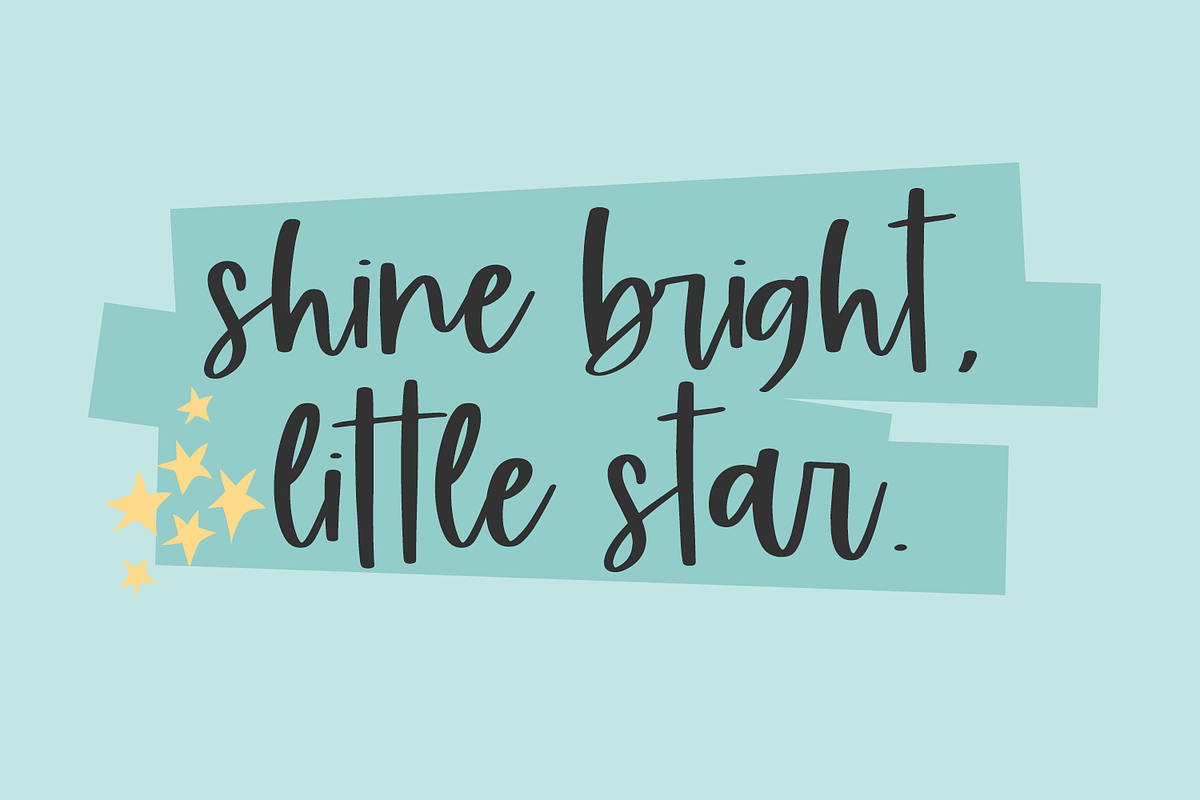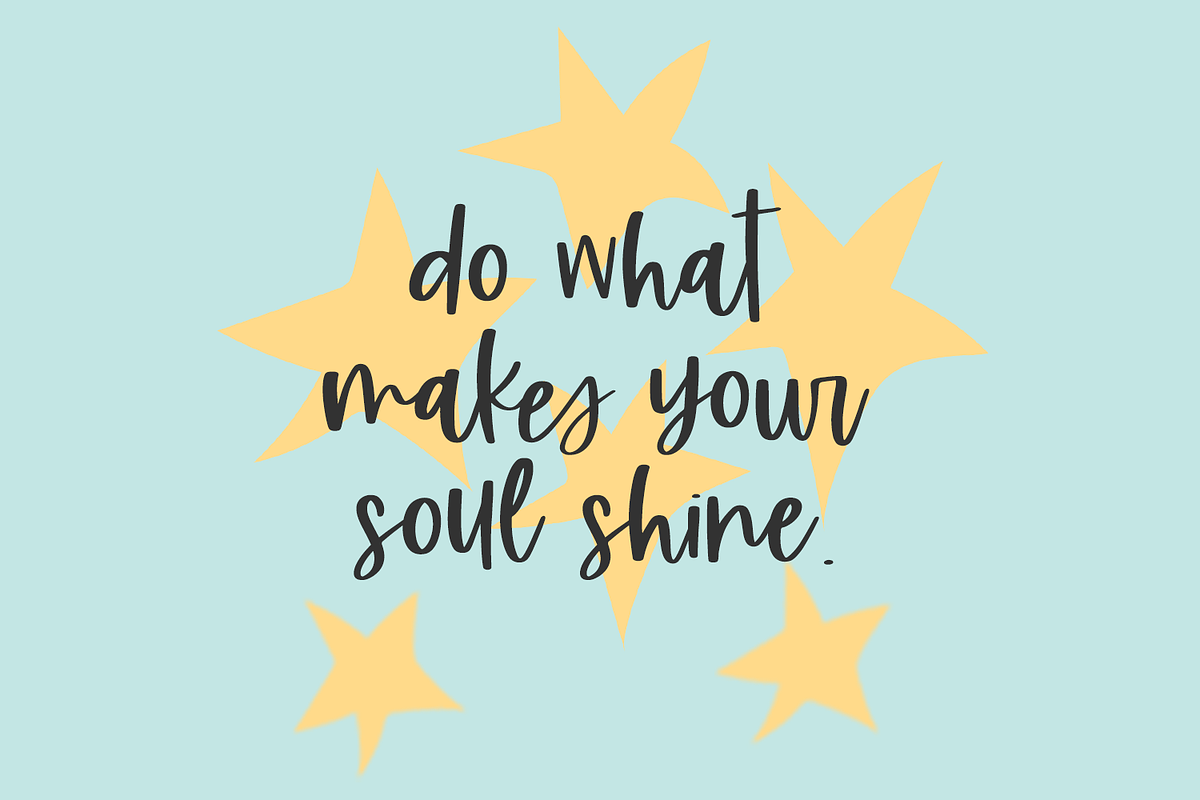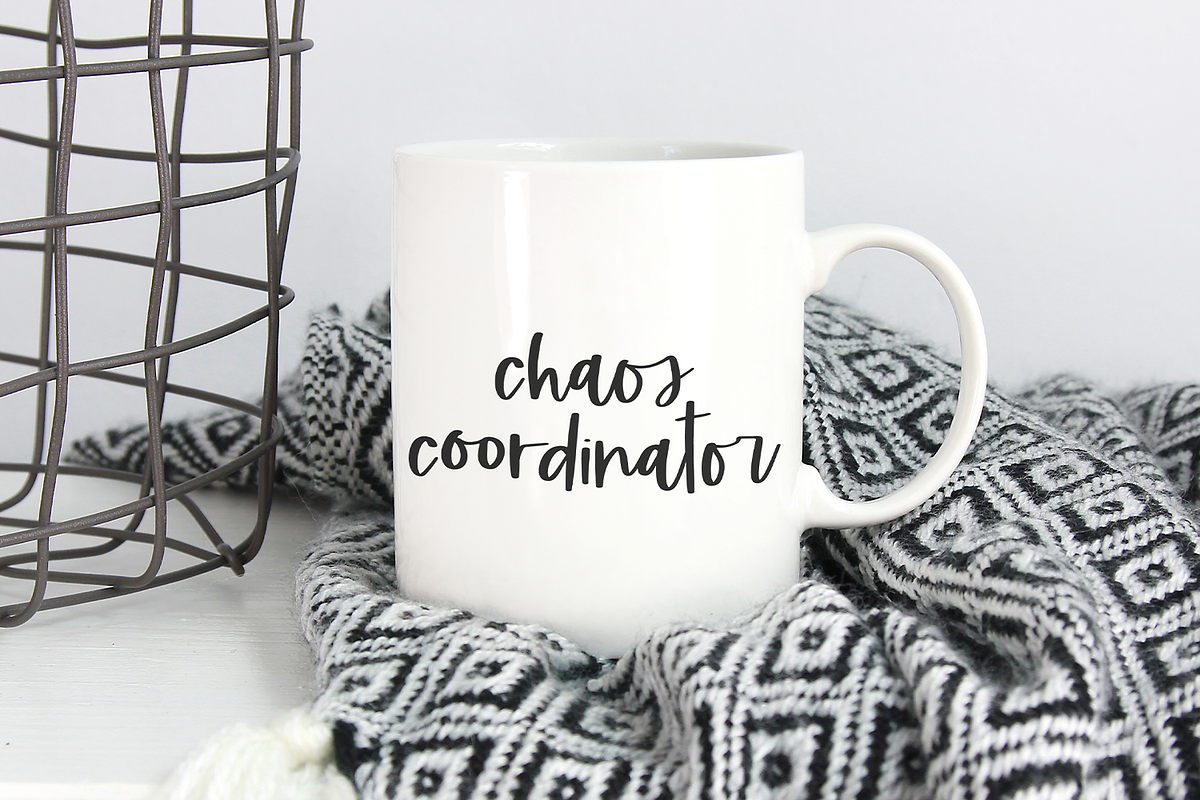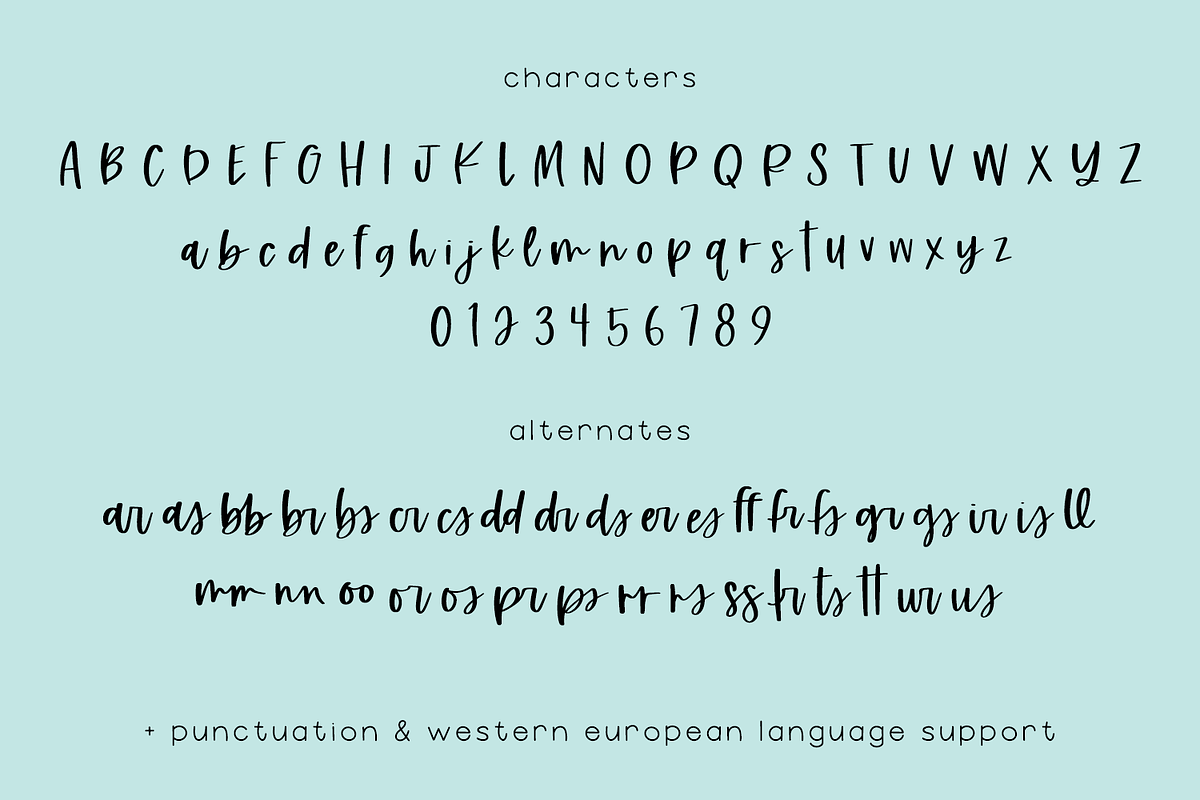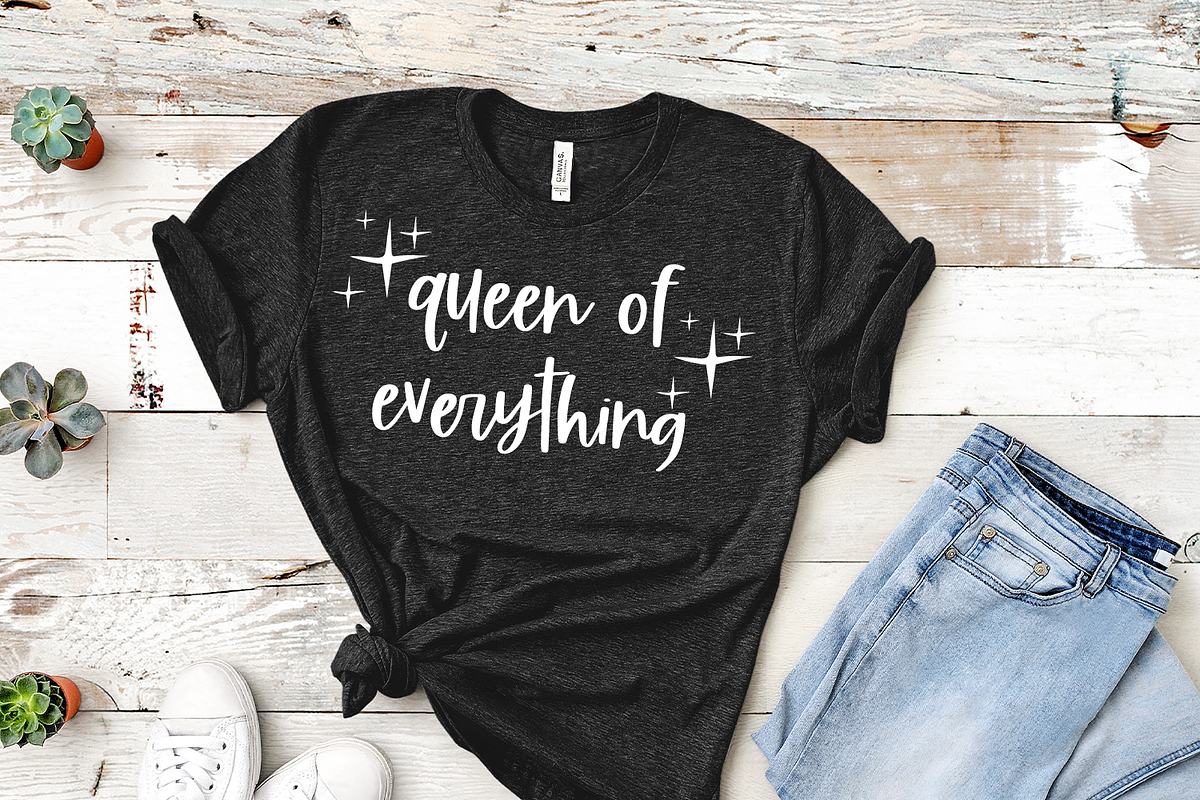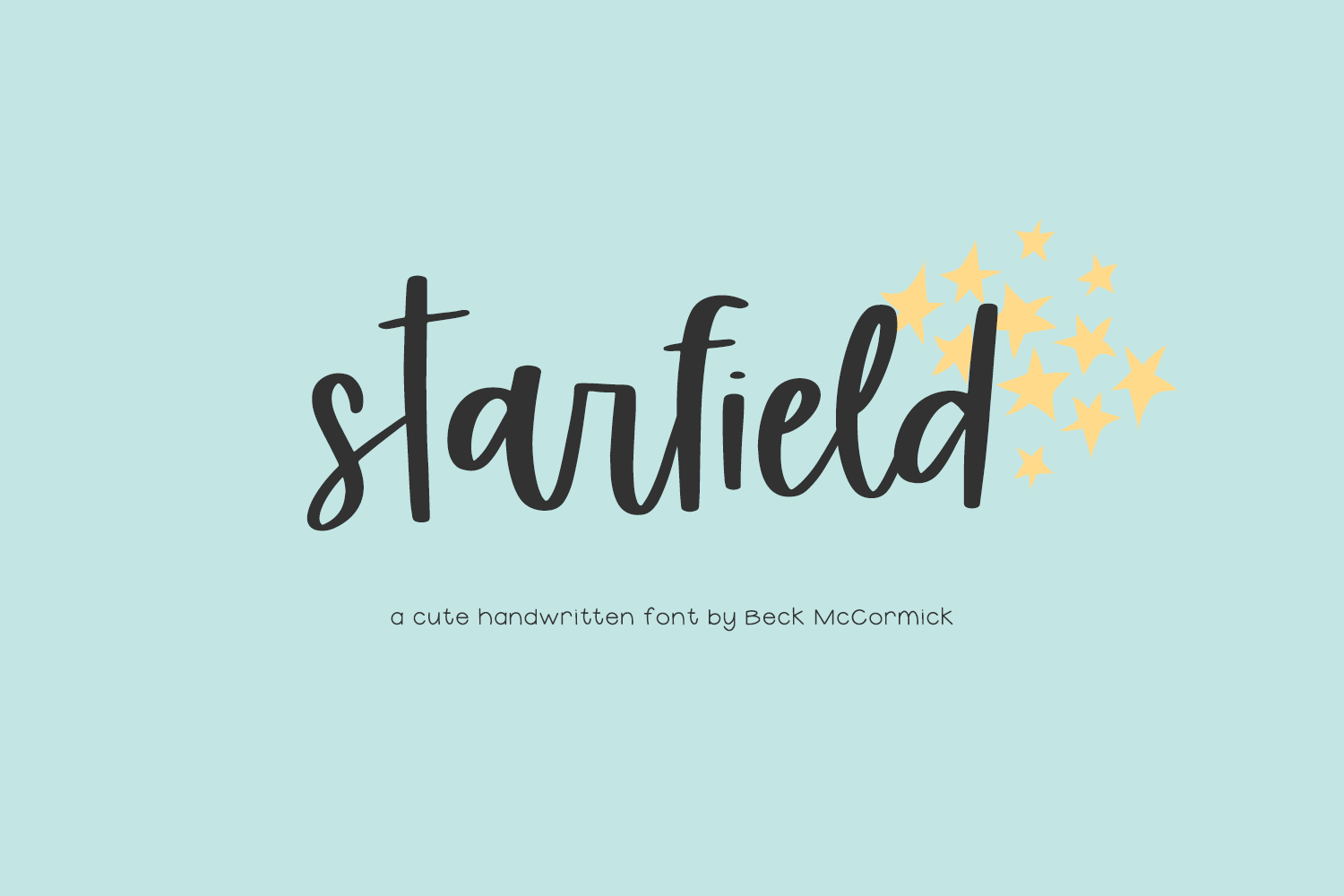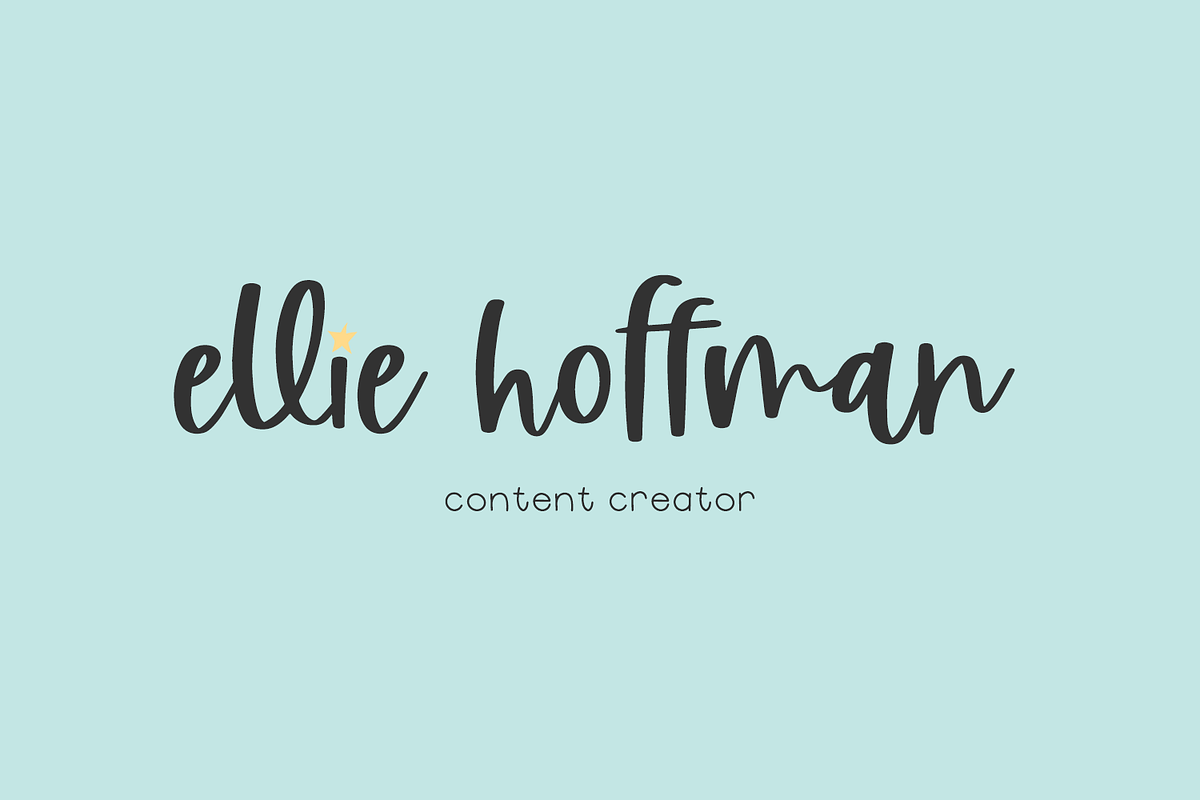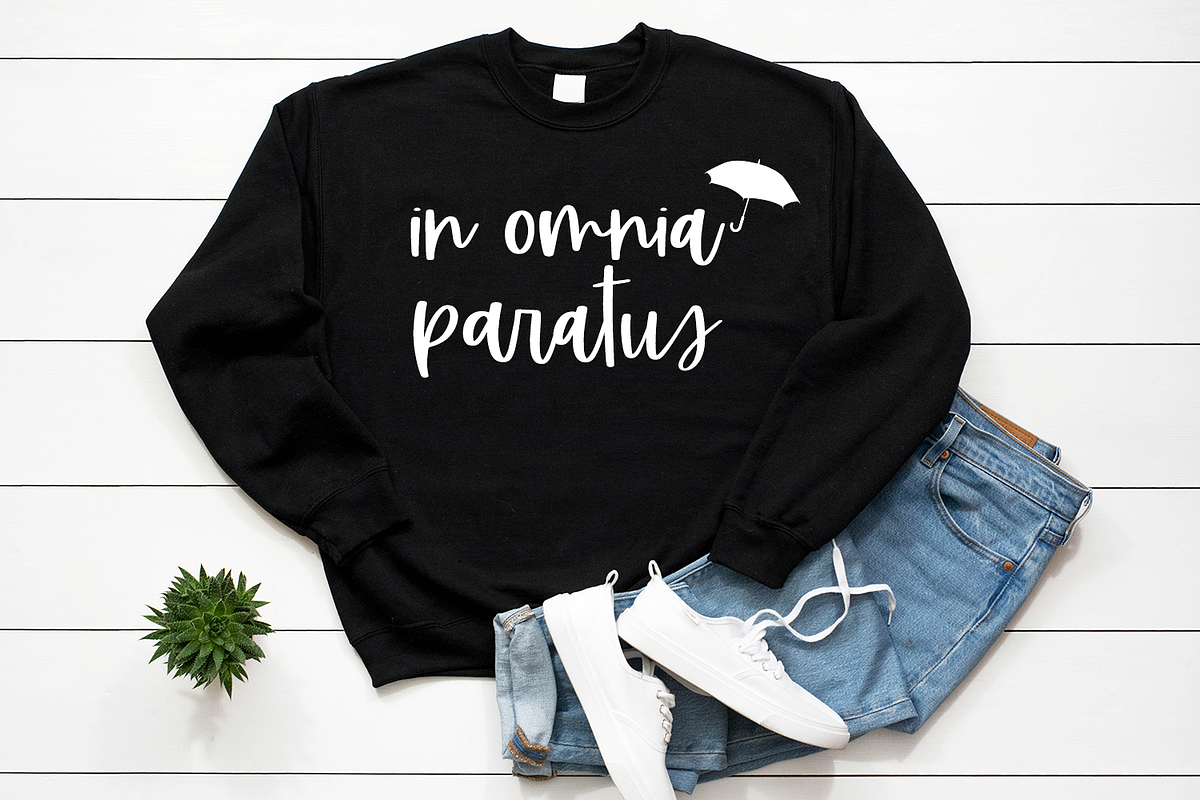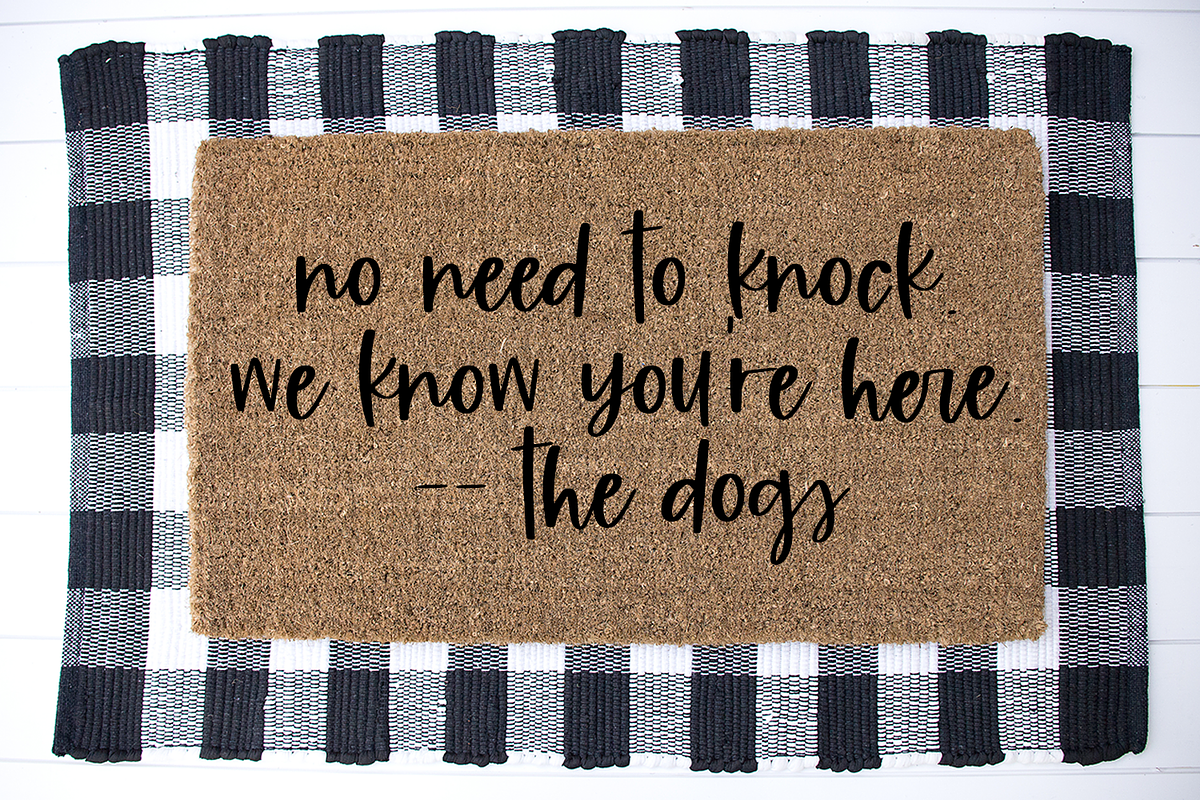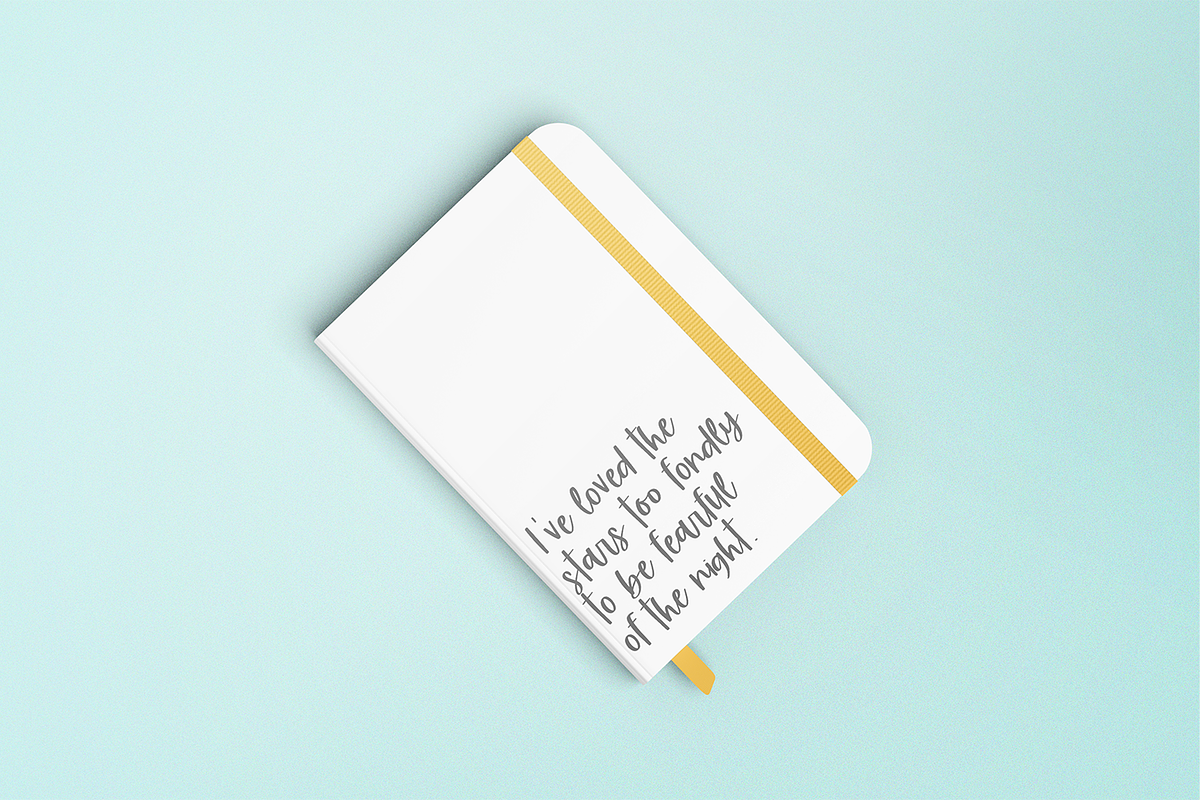
Starfield Handwriting Font
Introducing Starfield, a neat & tidy modern script. Starfield features 35 ligatures to enhance the handwritten look & feel of your project, while still remaining clean & legible.
- full upper + lowercase characters
- numbers + punctuation
- Western European Language Support
- 2 alternates - m, n
- 35 ligatures - ar, as, bb, br, bs, cr, cs, dd, dr, ds, er, es, ff, fr, fs, gr, gs, ir, is, ll, mm, nn, oo, or, os, pr, ps, rr, rs, ss, tr, ts, tt, ur, us